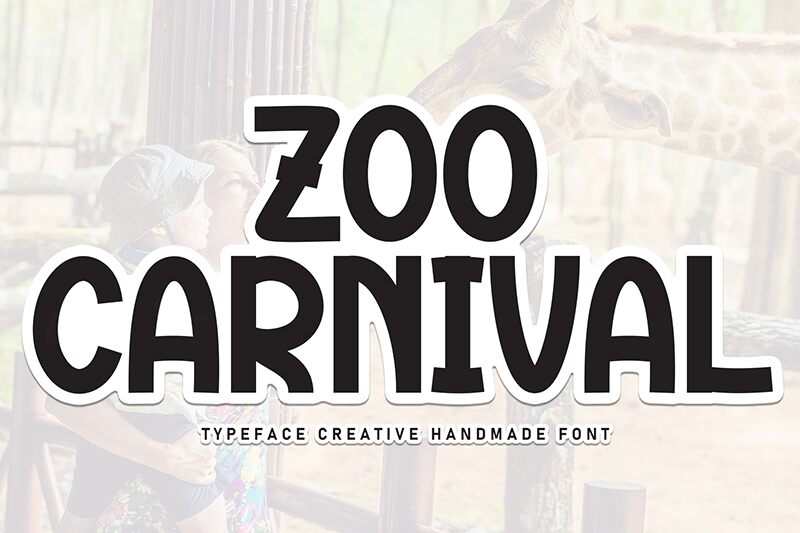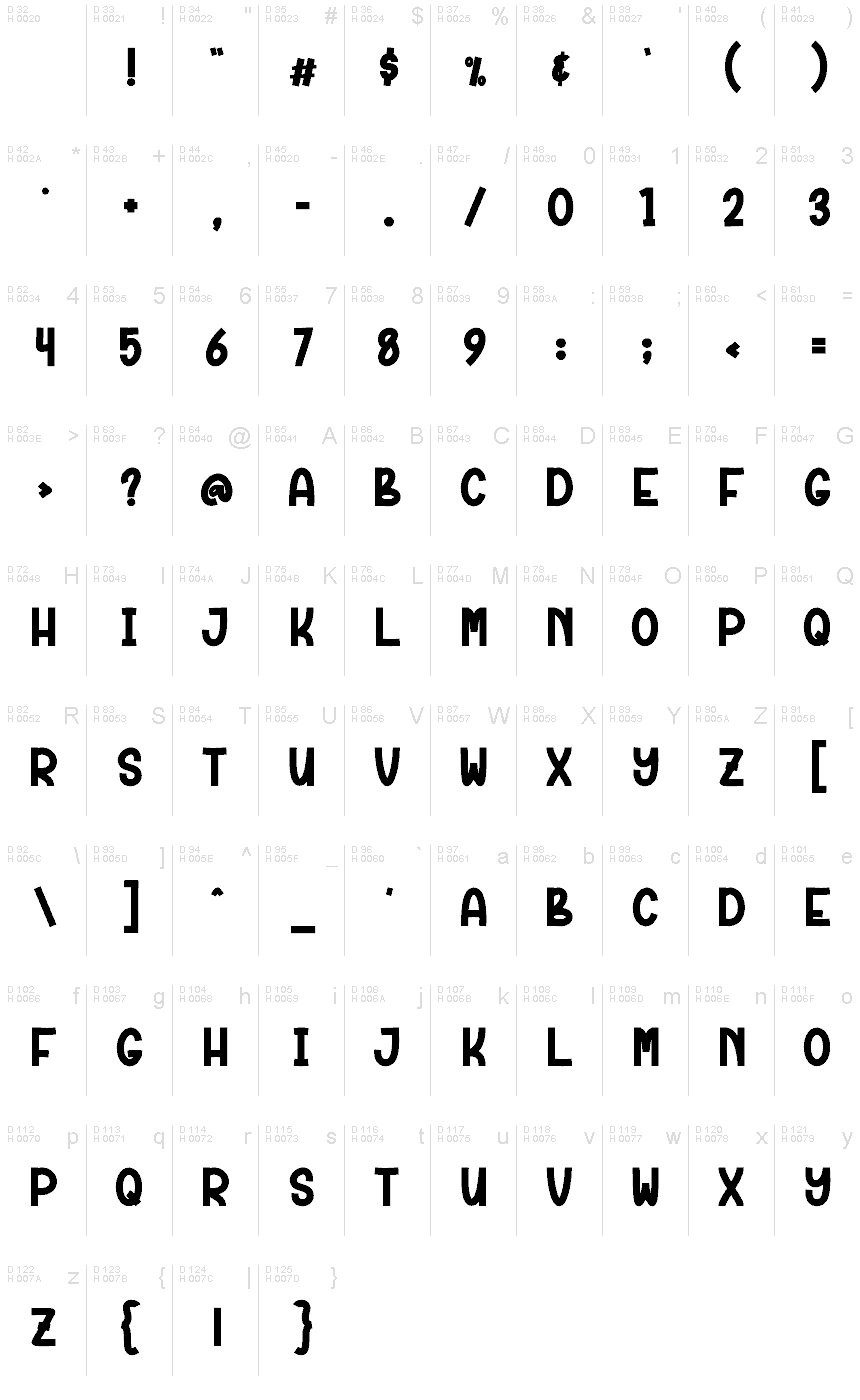
Zoo Carnival
Zoo Carnival font by Andi Moz is a free display font inspired by vintage elements. Each character features a rounded thick structure with geometric-inspired design that makes overall text have a lively essence.
Integrate this typeface on your posters, packaging, social media posts, game graphics, flyers, invitations and so many other similar projects!